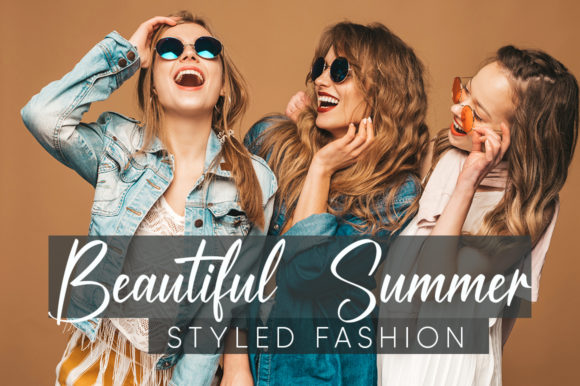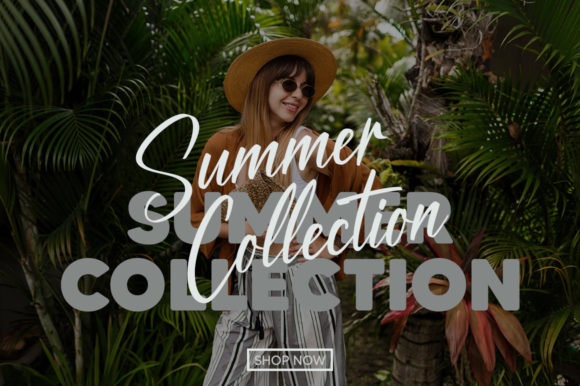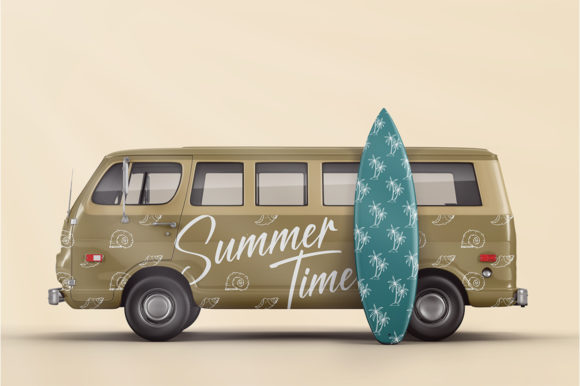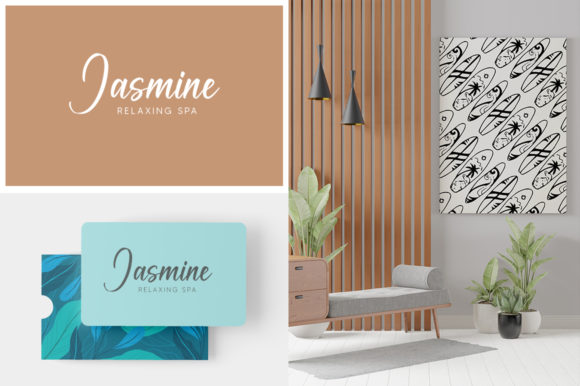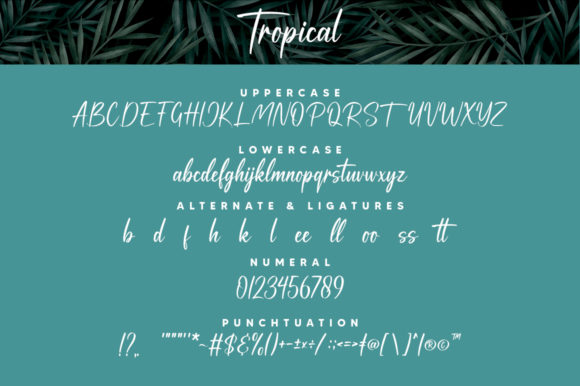
Tropical Font
About Tropical Font
Tropical is a refined and dainty handwritten font. Cursive and joyful, this font will be ideal for writing wedding invitations, cards, branding, printing or any other design that may need a romantic, personalized touch!